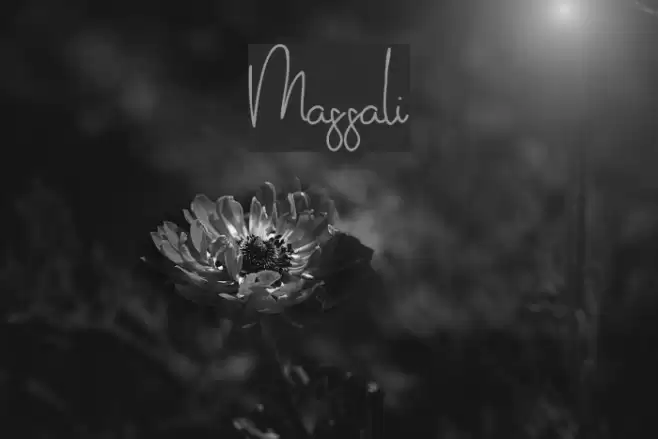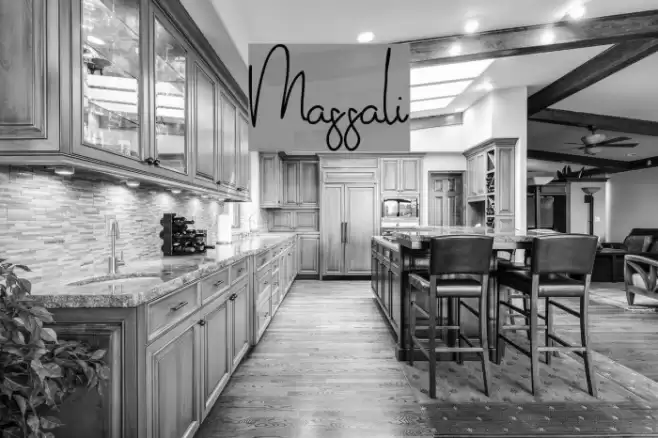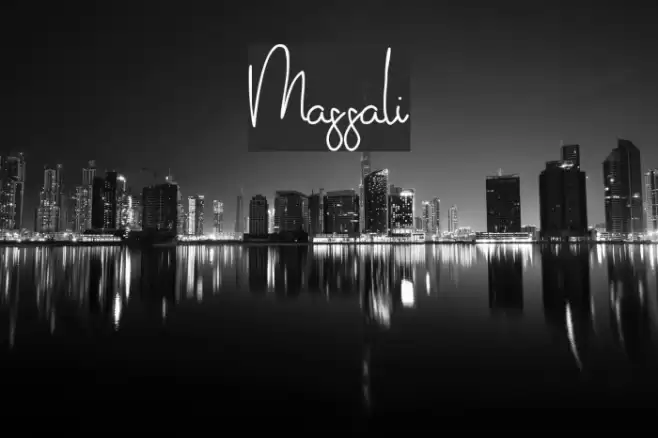
Massali Font
Massali Description
This font features a playful and whimsical handwritten style, characterized by its fluid and flowing letterforms. The uppercase letters are tall and slender, with a slight slant that adds a dynamic feel. Lowercase letters maintain a consistent style, with elongated ascenders and descenders that enhance the font's elegant appearance. The numerals are distinct and easy to read, complementing the overall aesthetic. Special characters are seamlessly integrated, maintaining the font's cohesive look. This font's unique charm makes it suitable for creative and artistic projects.
A playful handwritten font with fluid, slender letterforms and a whimsical style from Uncategorized fonts.
- Proposed Projects: Ideal for invitations, greeting cards, personal branding, and creative projects that require a touch of elegance and playfulness.
- Use Case: Logos, Invitations, Greeting Cards